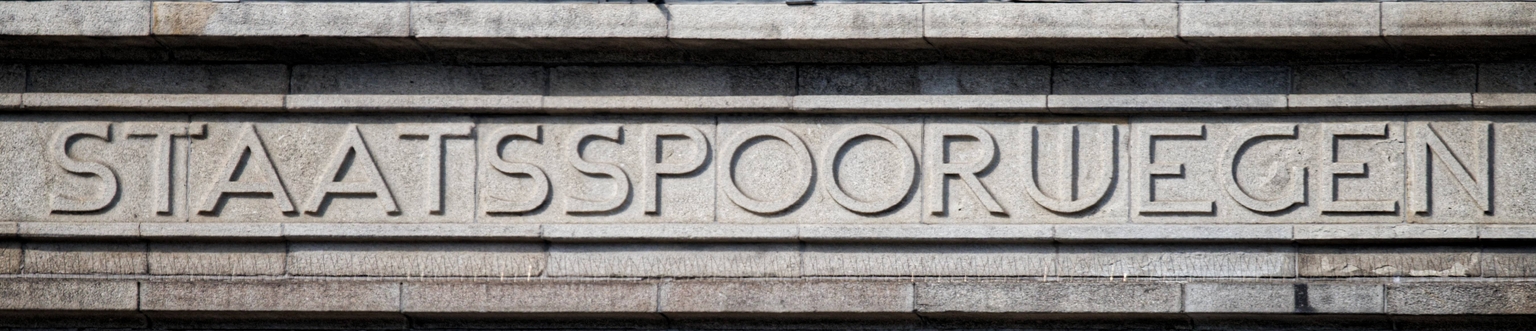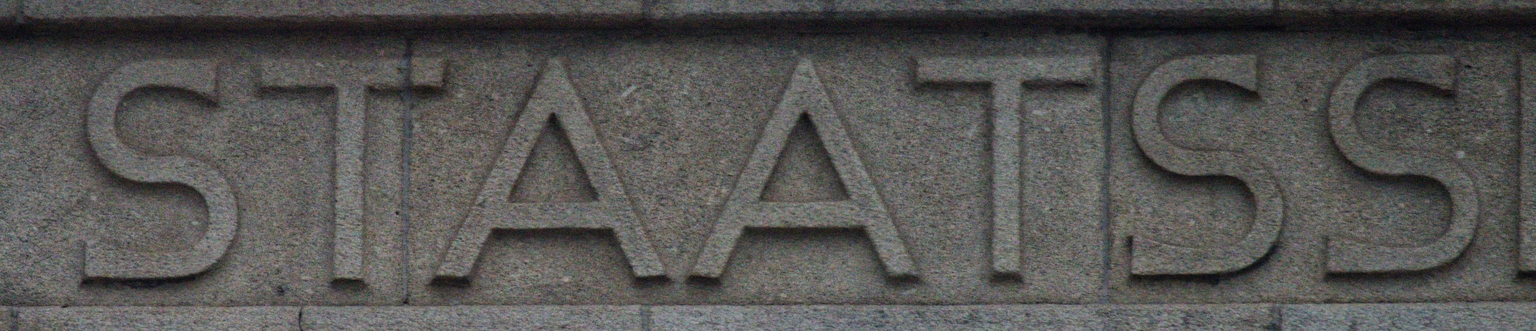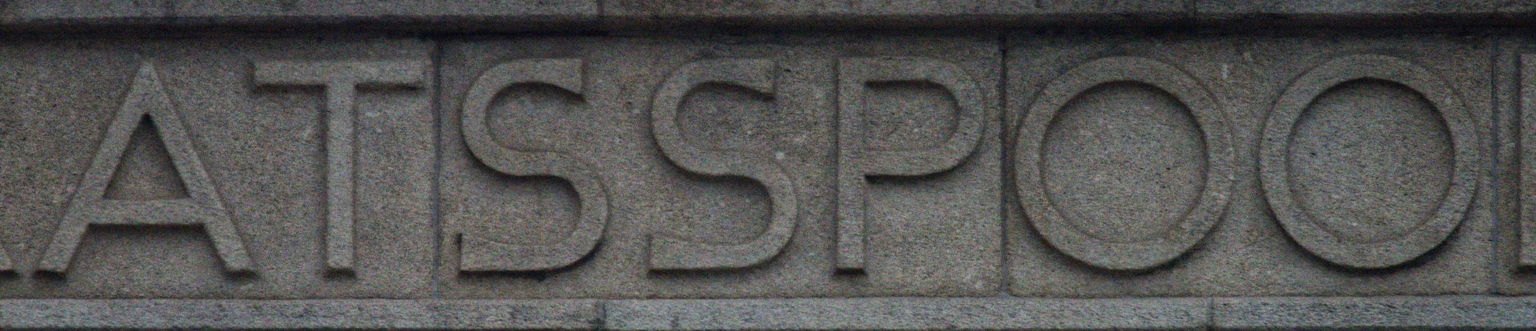
Spoorweg
Spoorweg is a display typeface designed by Ramiro Espinoza and inspired by the lettering on the façade of the former Reisbureau der Staatsspoorwegen, located at Dam 8 in Amsterdam, the Netherlands. The building was designed by architect K. P. C. de Bazel and completed in 1912. Its original inscription follows a carefully constructed geometric system, showing clear affinities with Mathieu Lauweriks' Quadratuuralfabet, in which letterforms are derived from proportional grids and geometric relationships.
Espinoza studied the proportions, structural logic, and distinctive details of the façade lettering and translated these principles into a contemporary digital typeface. Rather than reproducing the inscription literally, he refined the geometry, regularized the construction, and expanded the character set for contemporary typographic use while preserving the architectural character and subtle incised quality of the original design.
With its geometric structure and restrained elegance, Spoorweg is well suited for signage, editorial design, posters, branding, museum exhibitions, websites, and cultural projects that benefit from a refined and historically informed typographic voice. Rooted in early twentieth-century Dutch architectural lettering, the typeface brings the principles of geometric construction into contemporary graphic design.